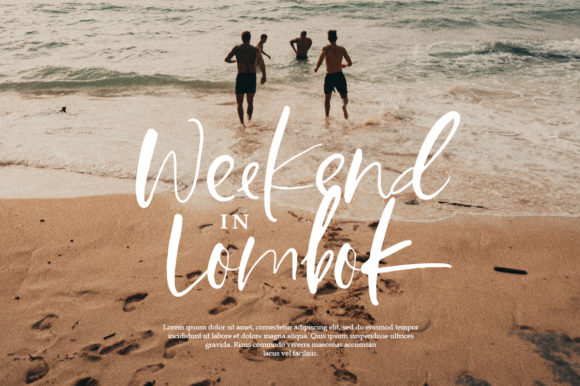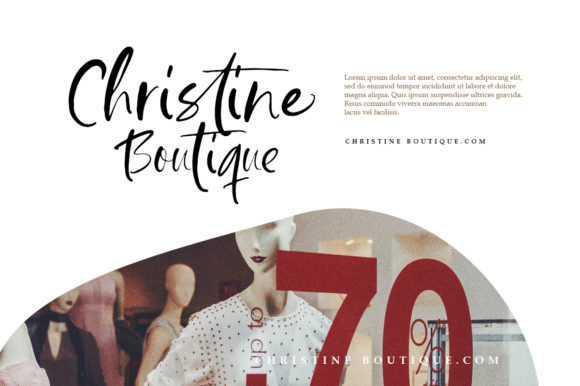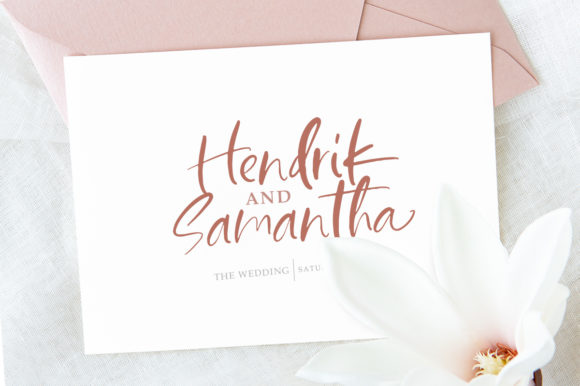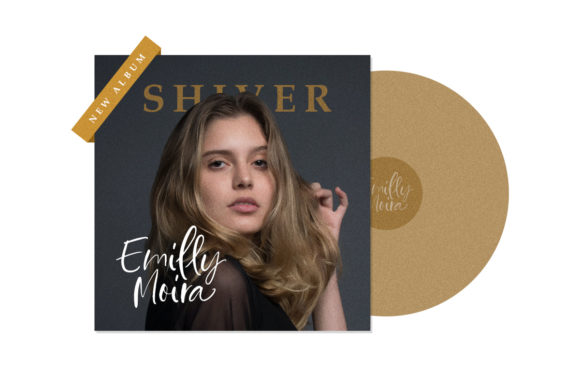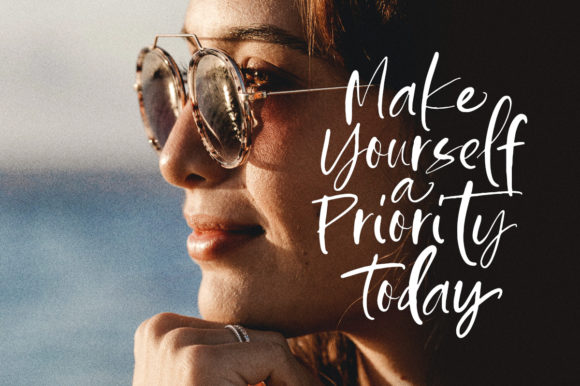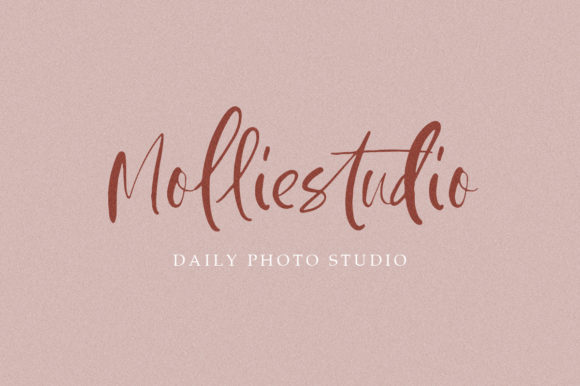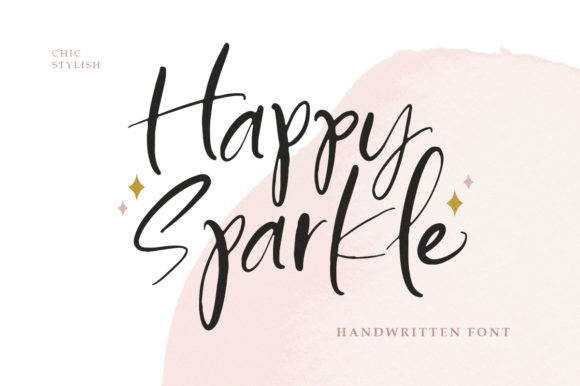
Introducing Happy Sparkle Font: Elevate Your Designs with Elegance
Are you a designer, crafter, or DIY enthusiast looking for a font that adds a touch of elegance and whimsy to your creative projects? Look no further than Happy Sparkle Font! This beautiful, handwritten font is designed to bring your ideas to life and make them sparkle.
What is Happy Sparkle Font?
Happy Sparkle is an elegant handwritten font that exudes sophistication and charm. Its unique, flowing script is perfect for adding a personal touch to your designs, whether you’re creating invitations, branding materials, or social media graphics. With Happy Sparkle, you can add a dash of personality to your projects and make them stand out from the crowd.
Features of Happy Sparkle Font
- Elegant Handwritten Style: Happy Sparkle features a beautiful, handwritten script that adds a touch of elegance to any design.
- Versatile: This font is perfect for a wide range of creative projects, from invitations and greeting cards to branding and social media graphics.
- Unique and Whimsical: This font has a unique, whimsical feel that’s sure to add a touch of personality to your designs.
Happy Sparkle Font is perfect for designers and crafters who want to add a touch of elegance and whimsy to their projects. Here are a few ideas to get you started:
- Wedding Invitations: Use Happy Sparkle to create beautiful, elegant wedding invitations that set the tone for a special day.
- Greeting Cards: Add a personal touch to your greeting cards with Happy Sparkle’s unique, handwritten script.
- Branding Materials: Use Happy Sparkle to create eye-catching branding materials, such as logos, business cards, and brochures.
- Social Media Graphics: Add a touch of personality to your social media graphics with Happy Sparkle’s whimsical, elegant font.
Why Choose Happy Sparkle Font?
There are many fonts to choose from, but Happy Sparkle stands out from the crowd. Here are a few reasons why:
- Unique Style: Happy Sparkle has a unique, elegant style that’s sure to make your designs stand out.
- High-Quality: This font is designed to be high-quality and easy to read, making it perfect for a wide range of creative projects.
Happy Sparkle Font is a beautiful, elegant handwritten font that’s perfect for designers, crafters, and DIY enthusiasts. With its unique, flowing script and whimsical feel, it’s sure to add a touch of personality to your creative projects. Whether you’re creating invitations, branding materials, or social media graphics, Happy Sparkle is the perfect choice. So why wait? Download Happy Sparkle Font today and start making your designs sparkle!